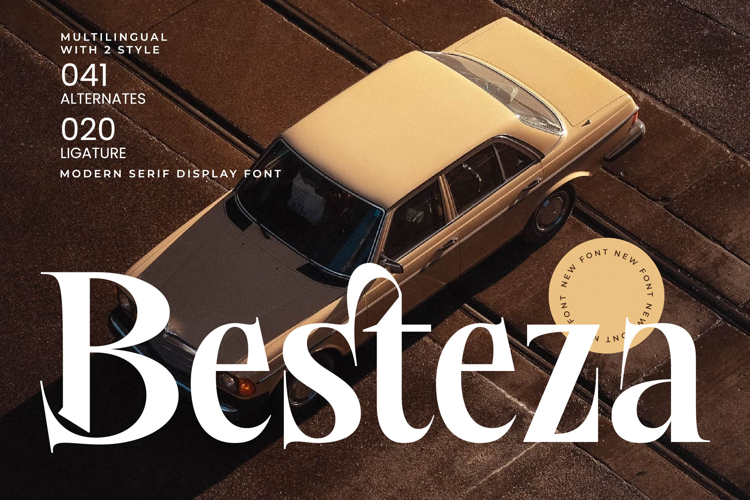
Besteza - Modern Serif Display Font
Elevate your designs with unparalleled elegance and distinction. Besteza - Modern Serif Display Font is a masterpiece of contemporary typography, blending classic serif grace with a bold, modern sensibility. Its striking high-contrast strokes and exquisitely fluid curves command attention, crafting an instant impression of luxury and sophistication. This display font is meticulously designed to provide a visually rich and impactful aesthetic, perfect for making a memorable statement in any creative project.
Discover comprehensive design flexibility for a truly global reach. Beyond its captivating beauty, Besteza - Modern Serif Display Font offers immense creative potential. Featuring an impressive 041 alternates and 020 ligatures, it empowers designers to craft unique, custom lettering with ease. With its extensive multilingual support, Besteza - Modern Serif Display Font adapts seamlessly across global markets, making it incredibly versatile for international projects and ensuring your message resonates universally.